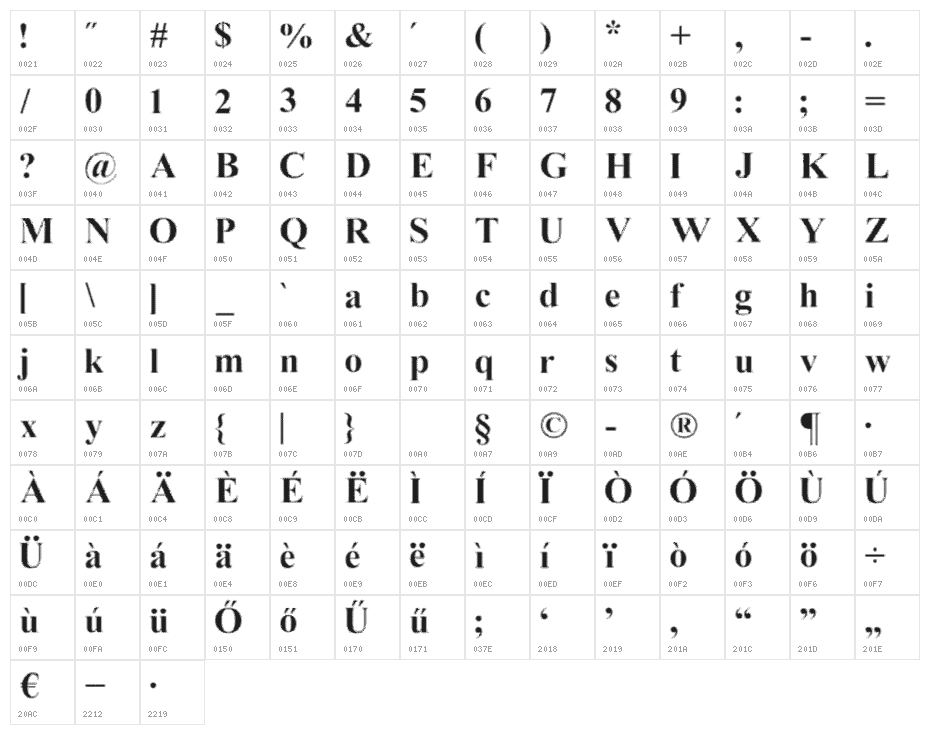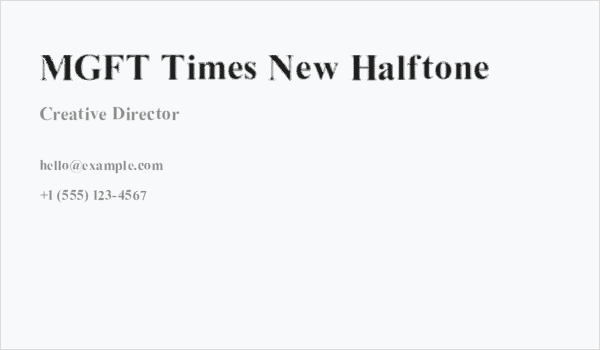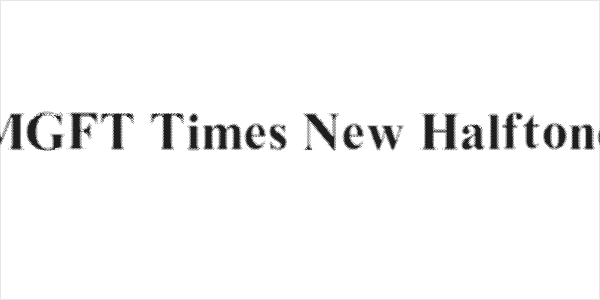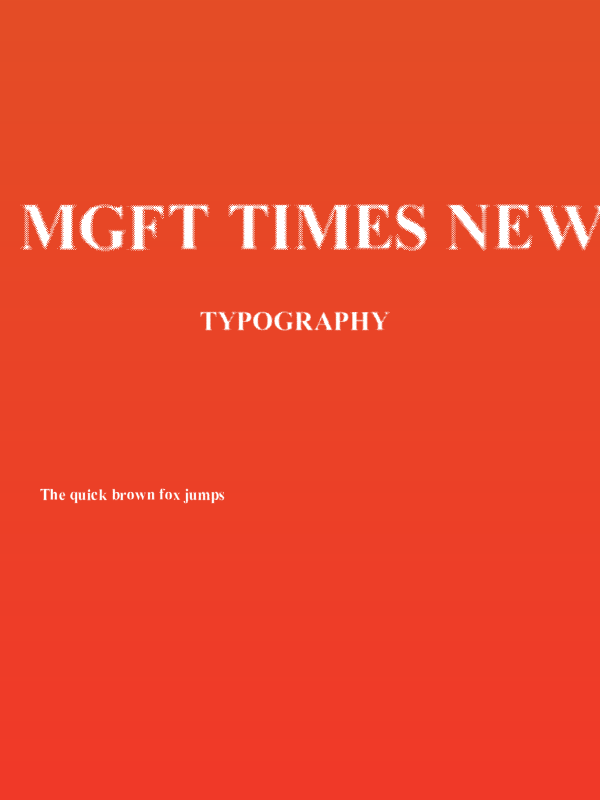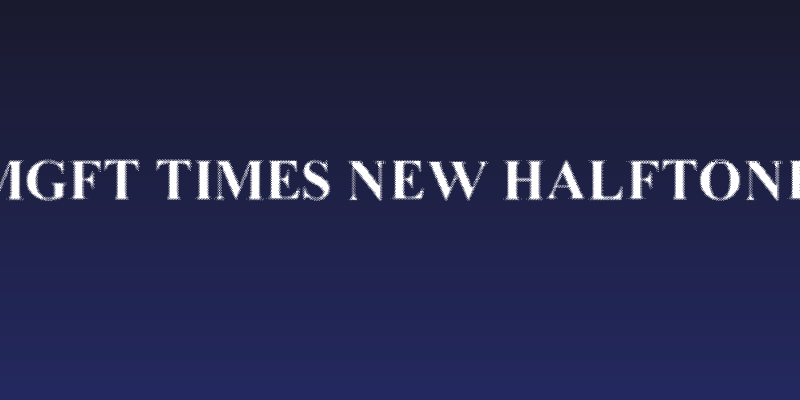
MGFT Times New Halftone Font
MGFT Times New Halftone Description
This font features a classic serif style with a unique halftone texture that adds a vintage and artistic flair. The uppercase letters are bold and commanding, while the lowercase letters maintain a balanced and readable form. The numbers are clear and distinct, making them suitable for various applications. Special characters are well-defined, enhancing the font's versatility. The halftone effect gives it a distinctive look, making it ideal for projects that require a retro or artistic touch.
| Proposed Projects | Ideal for retro-themed designs, artistic posters, vintage branding, and creative editorial layouts. |